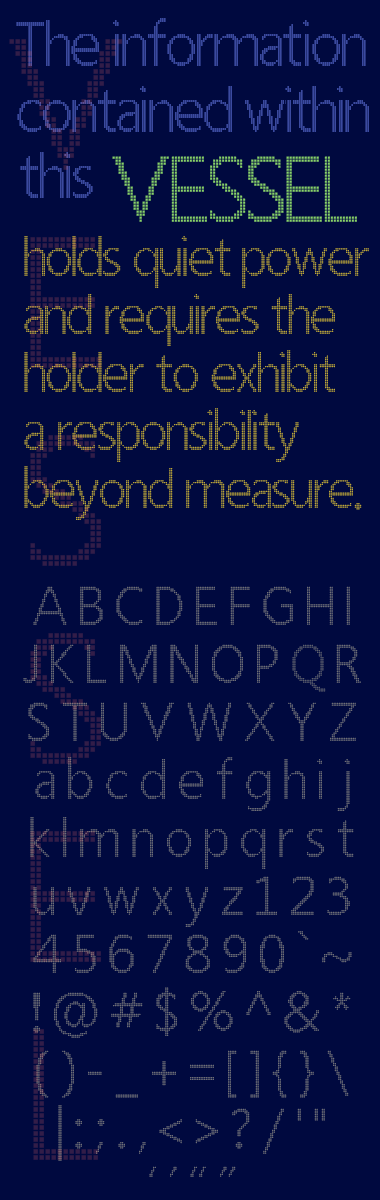
Vessel
aphoria
A pixelized imitation of a widely used font.
Any guesses what font this is based on? It's widely used, so it shouldn't be too hard to figure out.
I'm stumped! I wanted to say Gill Sans or Optima, but it's neither. Anyway, I love the sample. It really shows the delicacy of the letterforms. Excellent work, aphoria.
Here's a hint: Windows Vista.
Looks like Frutiger, probably condensed.
The only diference I find is in the bottom of the N.º "1", if it's Frutiger then it should't have a horizontal base.
Ach! Of course... Frutiger. Good call, jmarquez.
Nope, not Frutiger, although it is very similar.
Okay... I think I get your hints now...
Segoe UI
?
ding ding ding...
We have a winner! :)
[ Well I must say this Segoe UI looks to be another Frutiger rip-off like Vera sans and so on.]
It's a nice pixel version of it but the Uppercase "Q"'s bottom leg is curved in the original.
Hmmm, you're right about the Q. I'll fix that tomorrow.
I've corrected the Q and the sample.